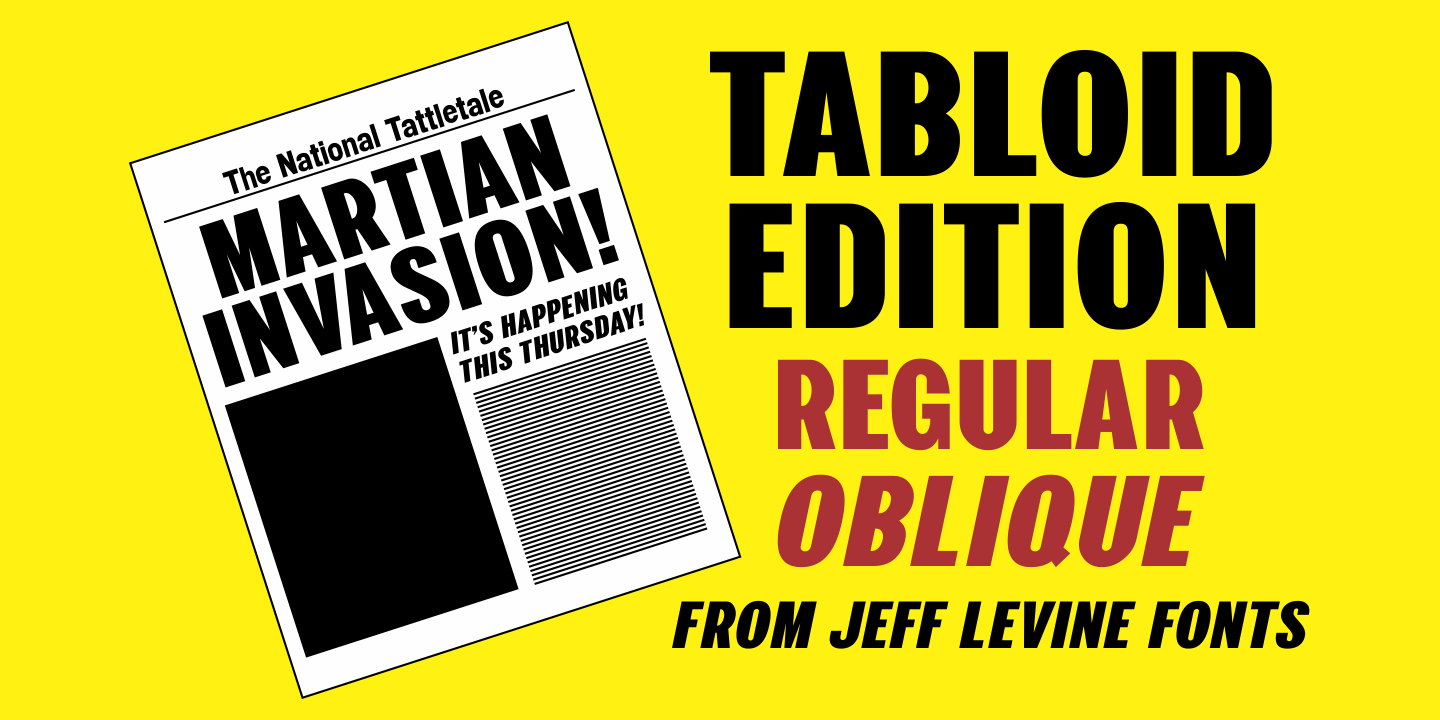
Tabloid Edition JNL Font is perfect for newspaper headlines, breaking news banners, vintage magazine covers, sensational advertising campaigns, retro journalism projects, dramatic poster designs, classic media branding, press conference materials, editorial publication layouts, and bold marketing headlines that require attention-grabbing typography with journalistic authority and vintage newspaper authenticity.
What makes Tabloid Edition JNL Font so exciting is its authentic recreation of classic newspaper headline typography that captures the urgent energy and bold authority of traditional print journalism. This font features condensed, impactful letterforms with strong vertical emphasis that commands immediate attention, perfectly mimicking the style of vintage tabloid newspapers and breaking news headlines. The carefully preserved character proportions and spacing create authentic newspaper aesthetics while ensuring excellent readability across both digital screens and print publications.
The Tabloid Edition JNL Font family includes multiple weights and styles: Regular, Bold, Condensed, Extended, Italic, and vintage distressed variants. Each weight maintains the signature newspaper character while offering comprehensive flexibility for journalistic design applications and editorial typographic hierarchies.
Editorial designers consistently choose Tabloid Edition JNL Font Free Download for projects requiring authentic newspaper typography that embodies the power and urgency of traditional journalism. Whether you're creating news website headers, developing media company branding, designing vintage-inspired publications, or crafting attention-grabbing advertising headlines, this font delivers exceptional impact and journalistic credibility. The font's comprehensive character set includes newspaper symbols and punctuation marks while ensuring optimal performance across both digital and print media applications, making it an essential tool for designers working on editorial projects that demand bold, authoritative, and authentically journalistic typography solutions with vintage newspaper charm and headline-grabbing power.